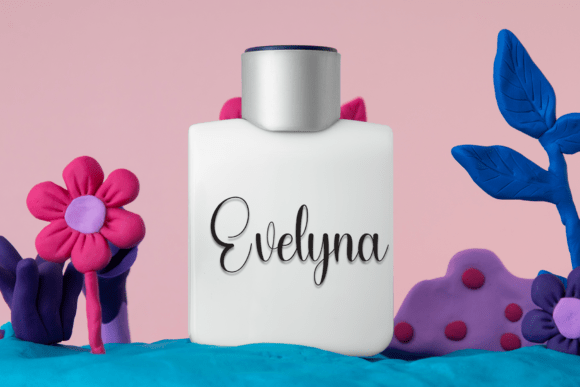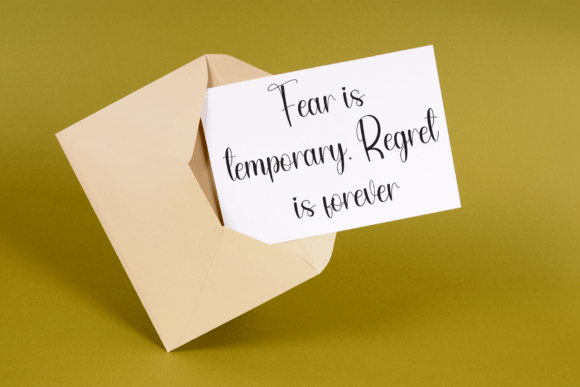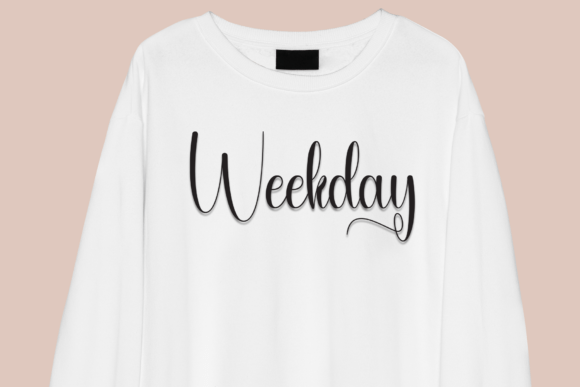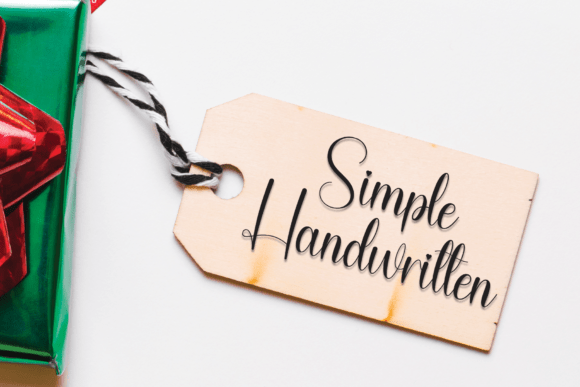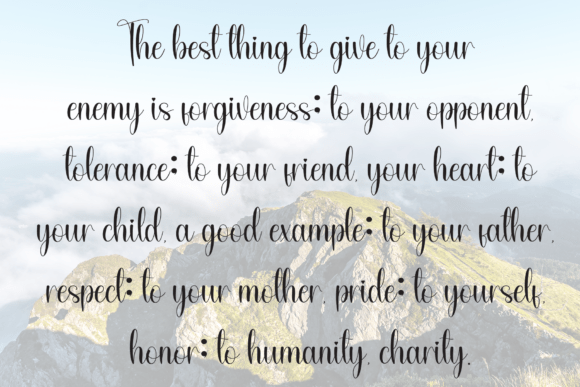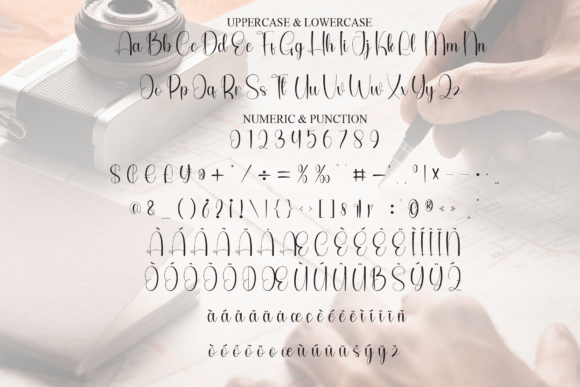
Unleash Your Creativity with the Timeless Elegance of Autography Font
Have you ever been working on a project, pouring your heart and soul into every detail, and suddenly, the right font appears in your design software, making everything fall into place? That’s exactly what happens when you discover the Autography Font. This stylish handwritten script font is the perfect blend of elegance and modern flair, adding a touch of sophistication to any project.
The Autography Font is designed for branding, invitations, and social media, making it an ideal choice for designers who want to add a personal and refined touch to their work. Its flowing strokes and organic curves bring warmth and charm, making it a valuable asset for any designer looking to elevate their projects. With the Autography Font, you can create a lasting impression and make your designs truly unforgettable.
Autography Font Key Features
- Font Family: Autography is a unique font family that combines elements of handwriting and typography.
- Character Count: Autography includes a wide range of characters, including uppercase and lowercase letters, numbers, and punctuation marks, with over 700 glyphs in the full version.
- Unique Characteristics: Autography’s distinctive blend of cursive and printed letterforms creates a friendly, approachable feel that works well for body text and headlines in a variety of contexts.
Designer Review: Autography Font
As a designer, I’ve had the chance to work with Autography Font, and I must say it’s a unique and intriguing typeface. ✨ The first thing that caught my attention was its cursive script style, which is perfect for creating a personal and handwritten feel in designs.
- ✨ Beautiful, elegant script style that’s great for invitations, cards, and other creative projects.
- ✨ Supports a wide range of languages, making it a great option for international designs.
However, I did encounter some limitations with Autography Font. ⚠️ The font family is quite large, which can make it difficult to navigate and find the perfect style. Additionally, some of the characters may not be as consistent in terms of spacing and alignment, which can be a bit frustrating for designers who value precision.
Tips for Getting the Most Out of Autography Font
To maximize the effectiveness of Autography Font, use it for titles, headings, and emphasis in your designs. You can also combine it with other fonts to create a unique visual hierarchy. Experiment with different font sizes, colors, and styles to find the perfect balance for your project.
Autography Font is ideal for:
– Creating eye-catching titles and headings.
– Adding a touch of elegance to invitations and event materials.
– Designing luxury branding and marketing materials.
– Enhancing the visual appeal of digital content, such as social media posts and blog articles.